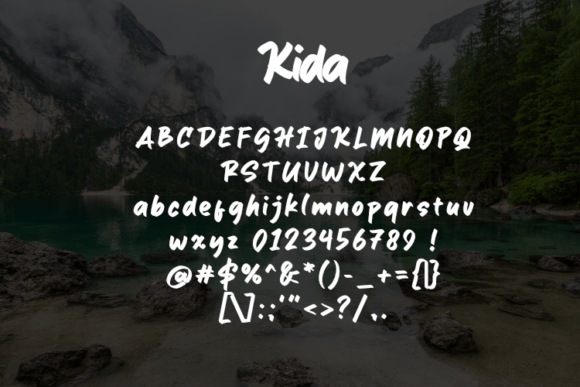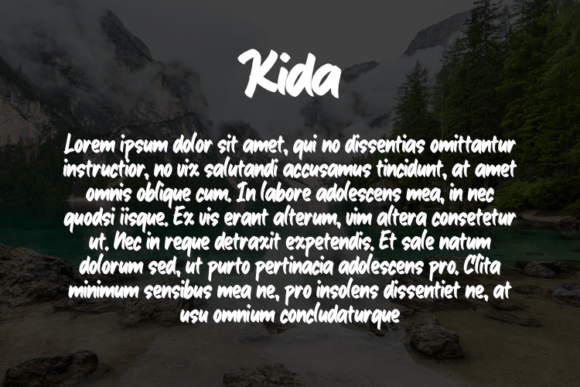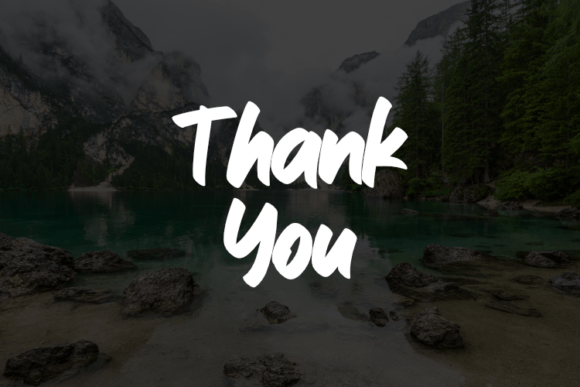
Unveiling the Power of Kida Font
Imagine you’re working on a creative project, and you finally find the perfect font to bring your quirky t-shirt design to life. The words “Kida Font” seem to dance on the screen, and you can almost feel the excitement of seeing your idea come to fruition. This is the magic of a well-designed font – it’s the difference between a mere concept and a stunning visual representation.
For designers, finding the right font can be a game-changer. It’s a valuable resource that can elevate your designs and make them stand out from the crowd. And when it comes to the Kida Font, its high-quality design and seamless compatibility with various software make it an invaluable asset for any creative project.
Key Features of Kida Font
- Designed to be highly versatile, making it suitable for a wide range of creative projects.
- Unique, modern design style that sets it apart from other fonts, making it a valuable addition to any design resource library.
Honest Review: Kida Font
I recently stumbled upon the Kida Font, a design resource that caught my attention with its sleek and modern aesthetic. As a designer, I’m always on the lookout for high-quality fonts that can elevate my creative projects.
- ✨ Unique and modern design aesthetic
- ✨ High quality and crisp typography
- ⚠️ Limited character set, which may not be ideal for longer texts
- ⚠️ Not suitable for designs where you need a lot of font sizes and styles
Overall, I’m impressed with the Kida Font and would definitely consider using it for future creative projects. While it may not be perfect, its unique design and high quality make it a valuable addition to any designer’s toolkit.
Tips for Getting the Most Out of Kida Font
To get the most out of Kida Font, use it in conjunction with other high-quality design resources. Experiment with different font sizes, colors, and styles to create unique and eye-catching designs.
Kida Font is perfect for creative projects such as branding, logos, and typography-based designs. It’s also great for adding a touch of elegance to your presentations and documents.
Compared to Kida Font, Aleo Font has a more traditional and classic look, making it suitable for use in publications and magazines. However, Kida Font has a more modern and edgy feel, making it ideal for use in digital design projects.
Compared to Kida Font, Lato Font has a more minimalist and clean design, making it suitable for use in web design and mobile app design. However, Kida Font has a more playful and creative feel, making it ideal for use in branding and advertising projects.